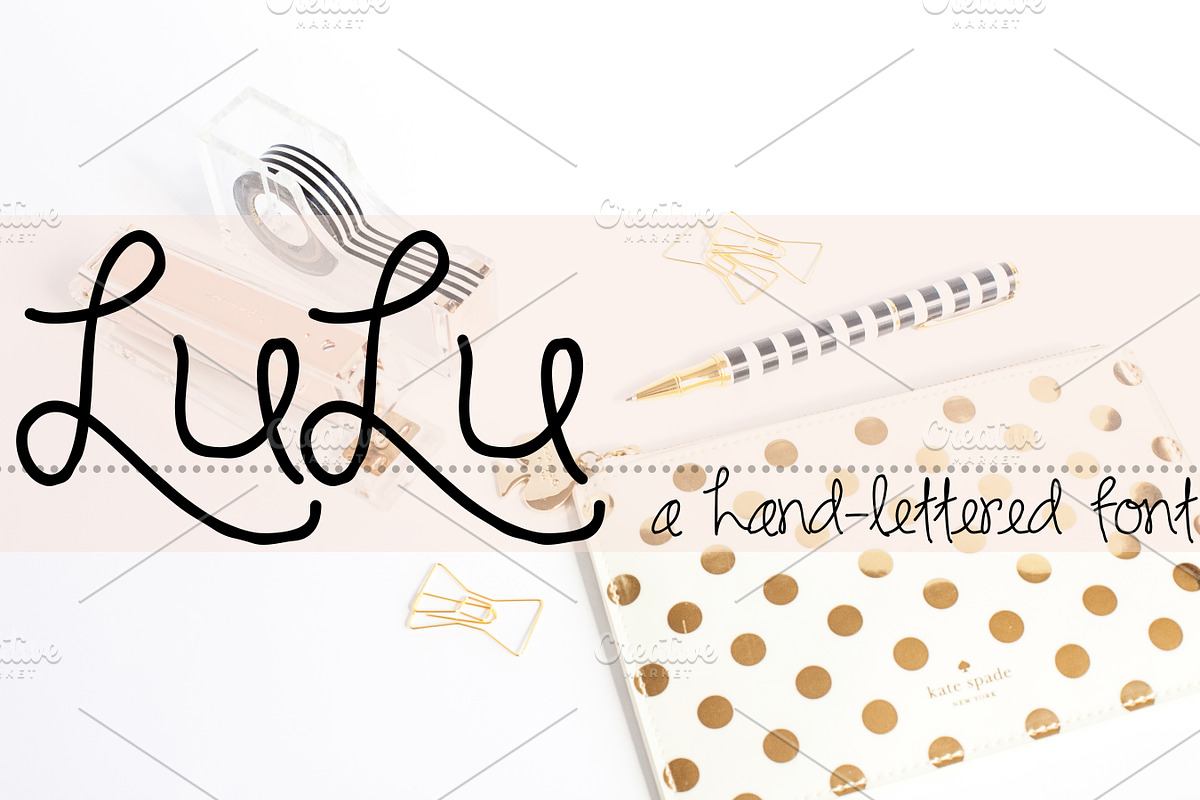
LULU Hand Lettered Font Free Download is a fun, playful typeface with a casual, handcrafted vibe that feels like it came straight from your sketchbook. With its bouncy baseline, imperfect strokes, and friendly character, LULU is perfect for greeting cards, planners, product packaging, social media posts, and anything that needs a personal touch.
Whether you're designing for a small business, crafting DIY projects, or adding charm to your brand, LULU brings warmth, whimsy, and approachability to every design. It’s super readable, delightfully quirky, and full of personality—ideal for both print and digital work.